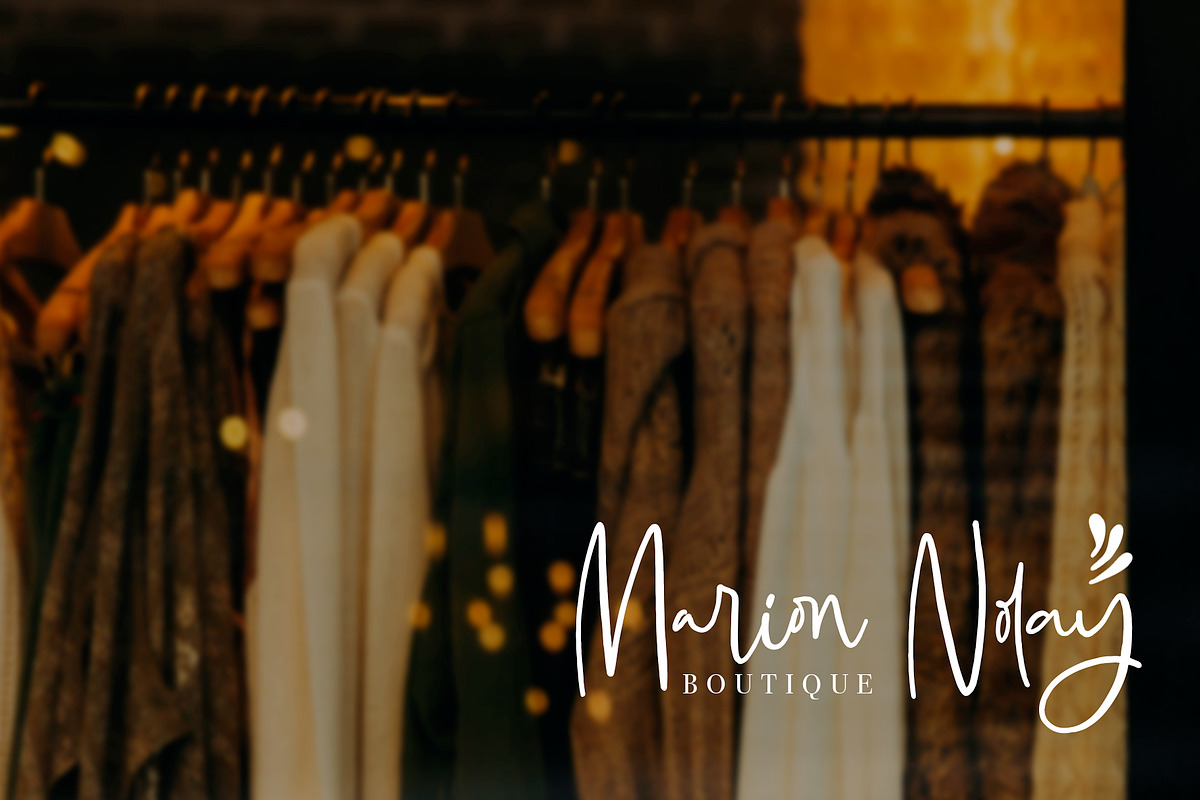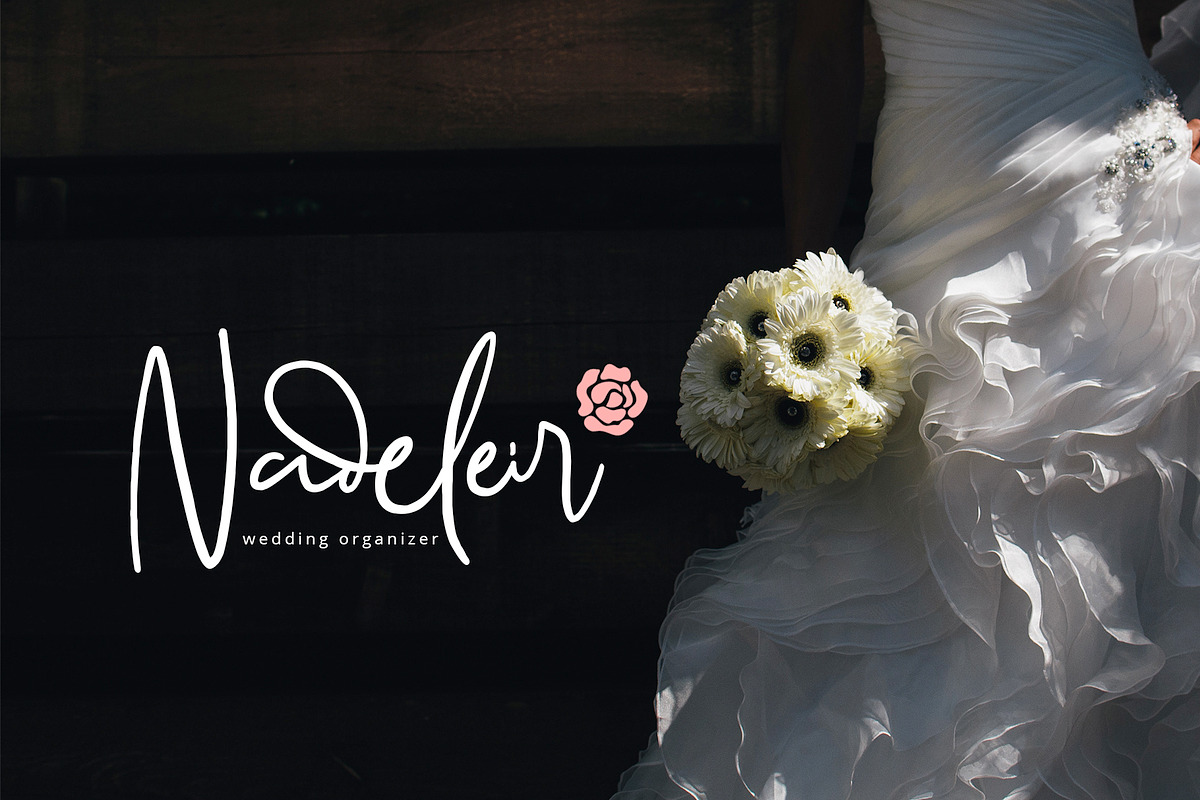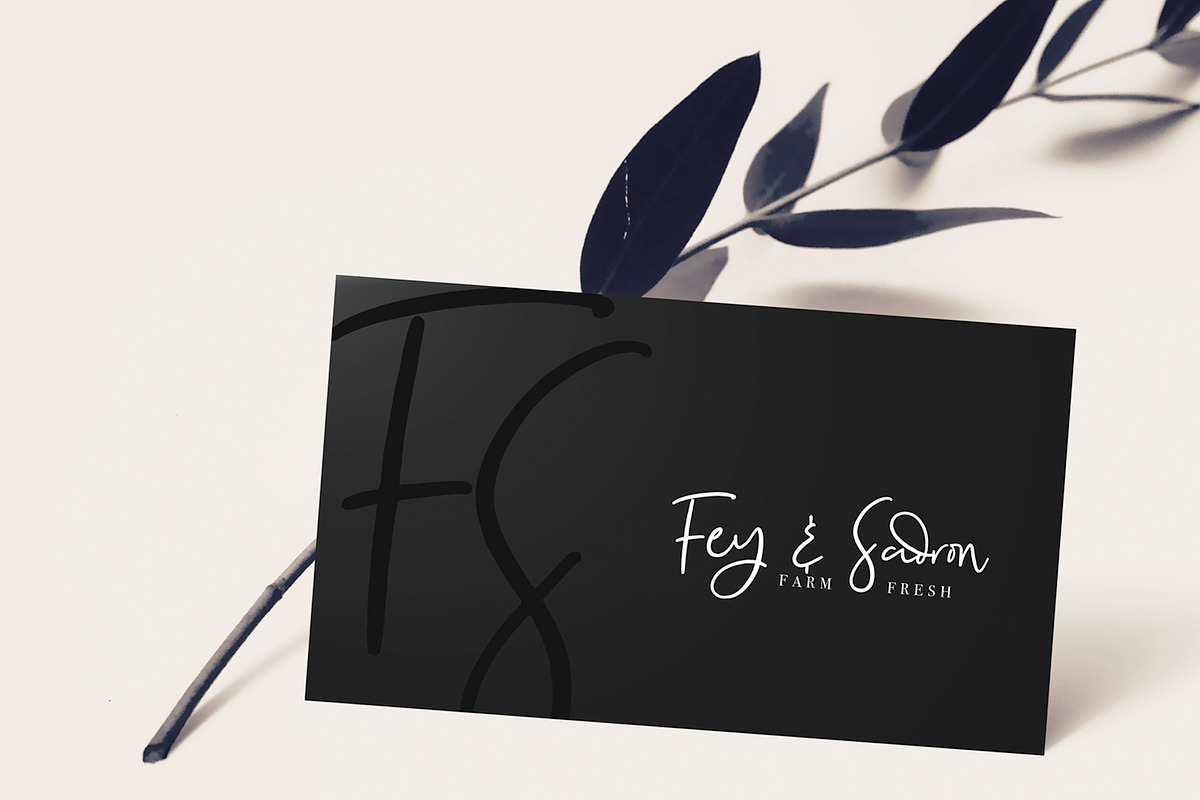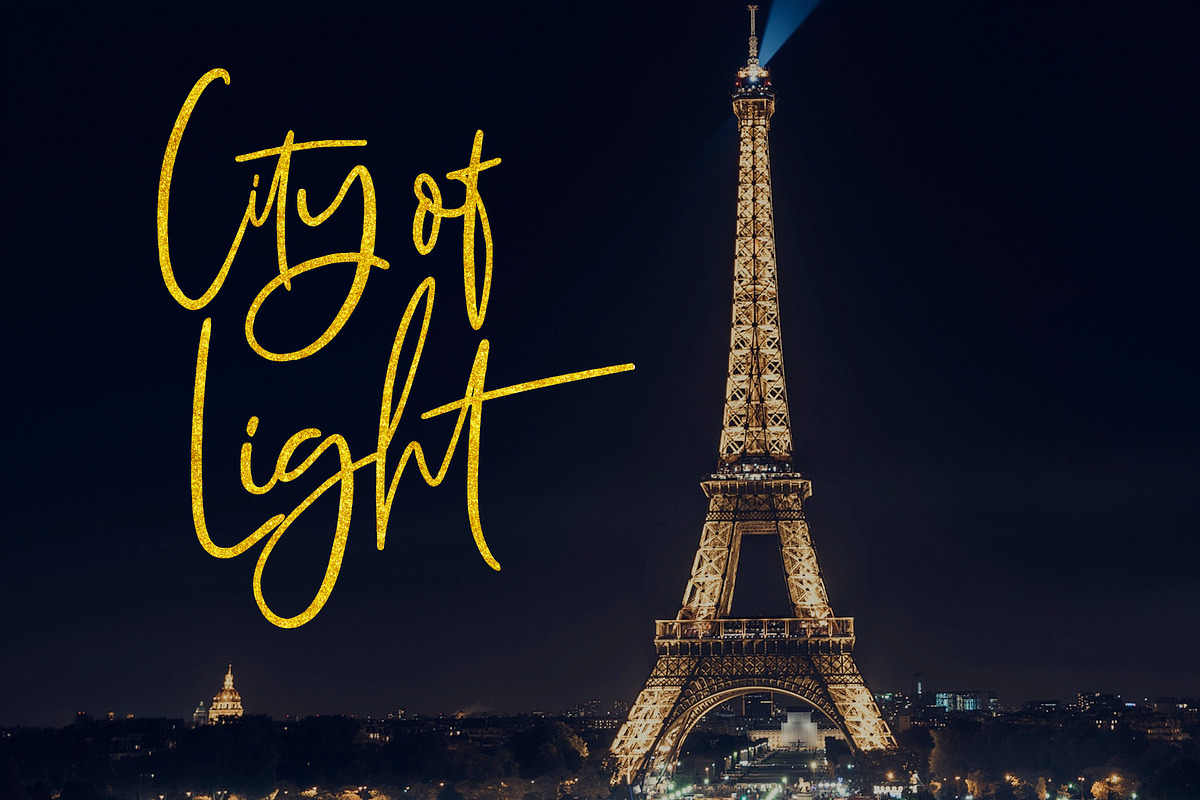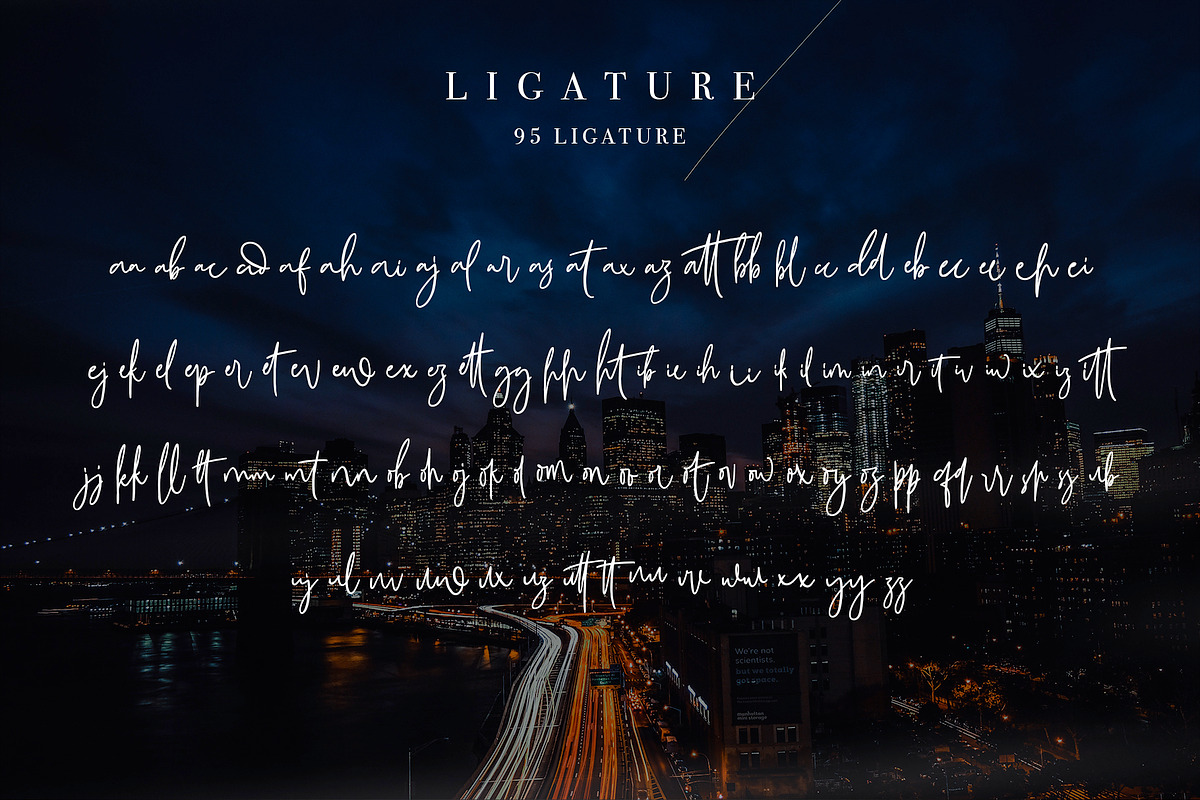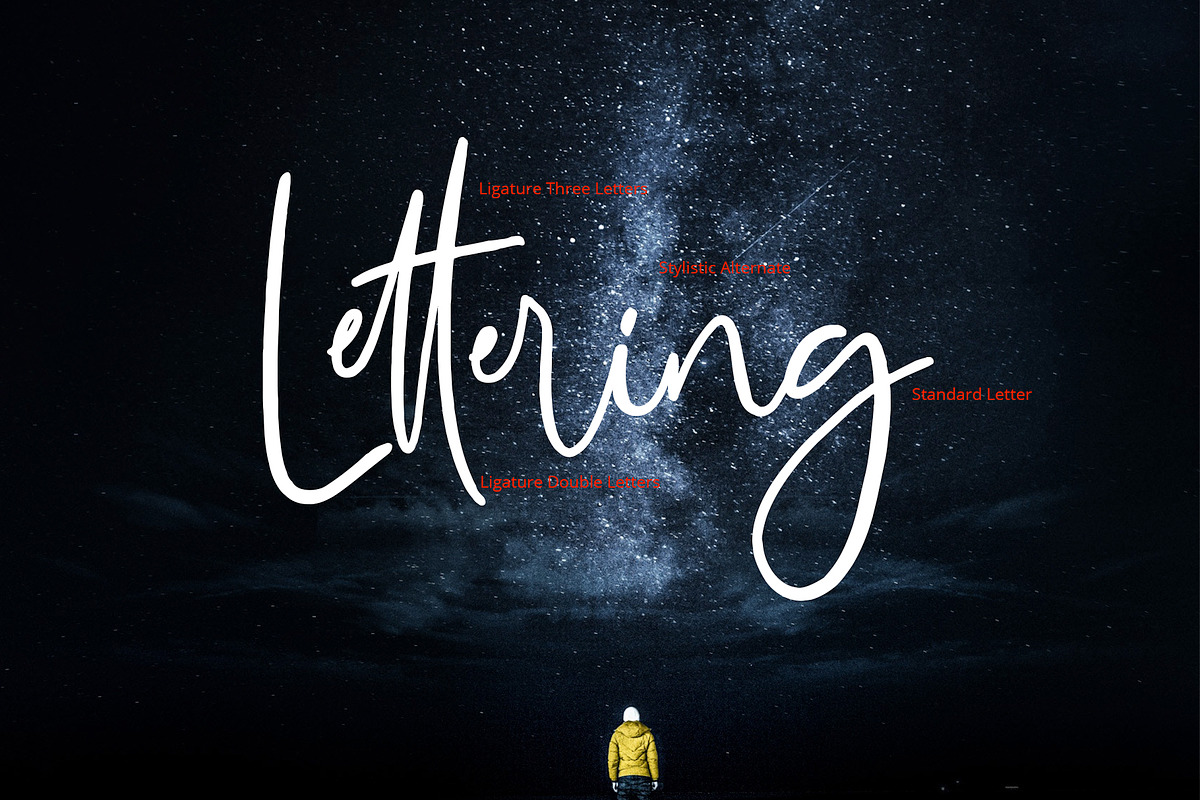
Hi ! Let me introduce the new Madeleine Signature a new modern signature font.
Every single letter crafted carefully and every ligature has a different look from the original. Activating Ligature on your design software make the font look funny and real handwriting cause inconsistent is the key :D. Every letter has a different height and ligature make the font look as your handwriting.
- Alternate character not only ligature, this font also contained alternate character for every single lowercase
- Ligature this font contained 95 ligatures make this font so funny